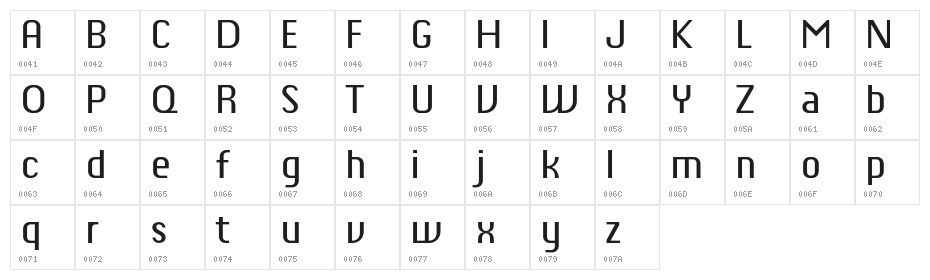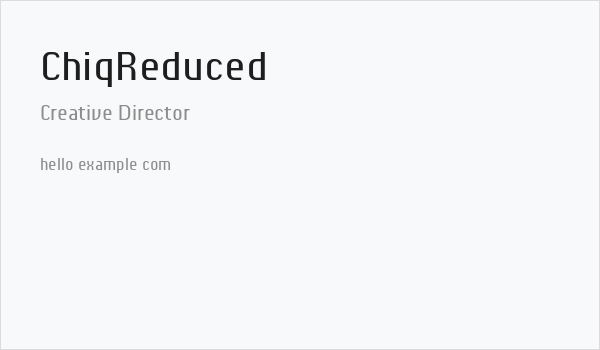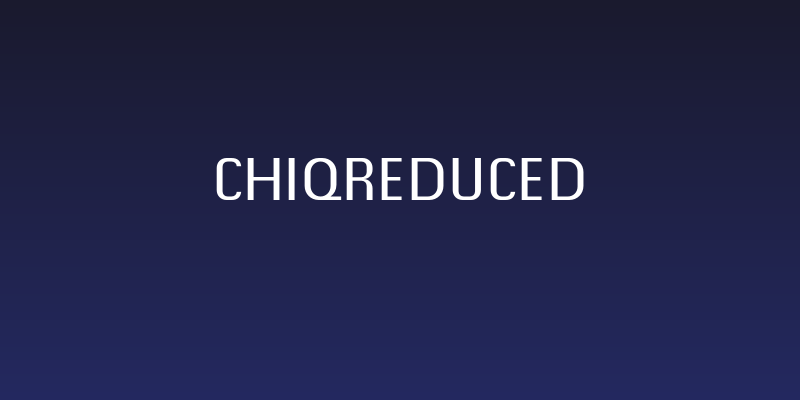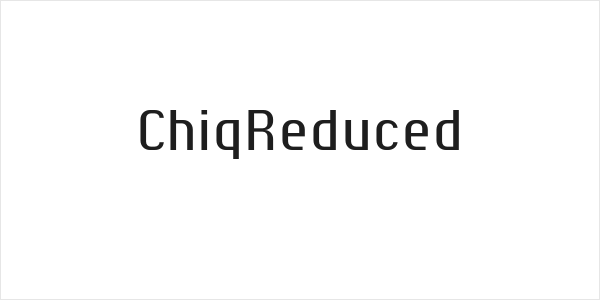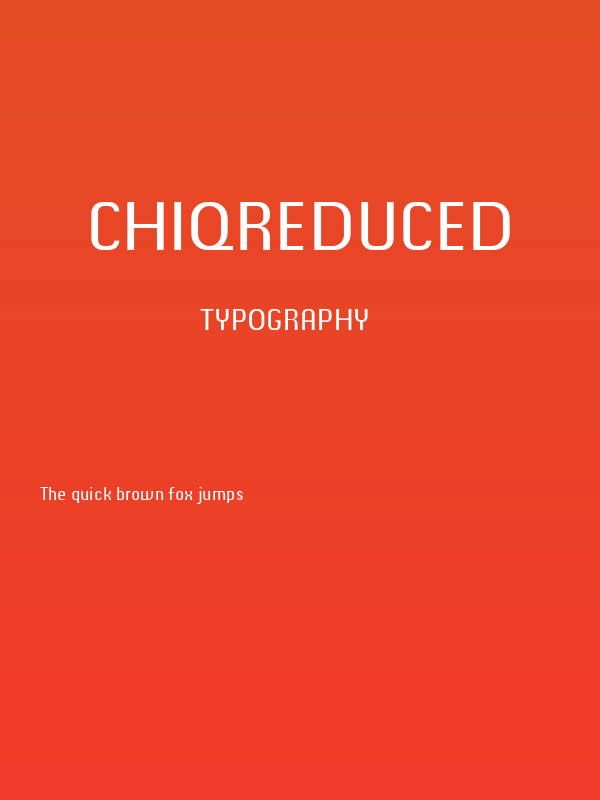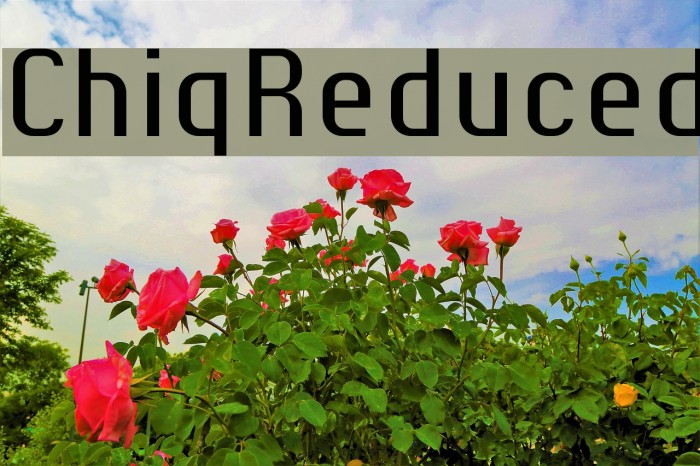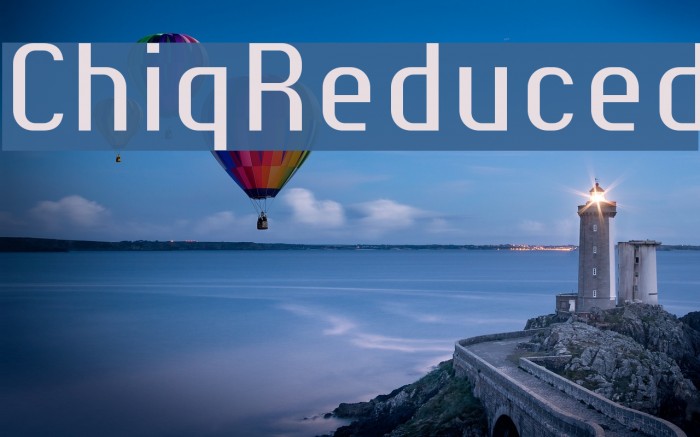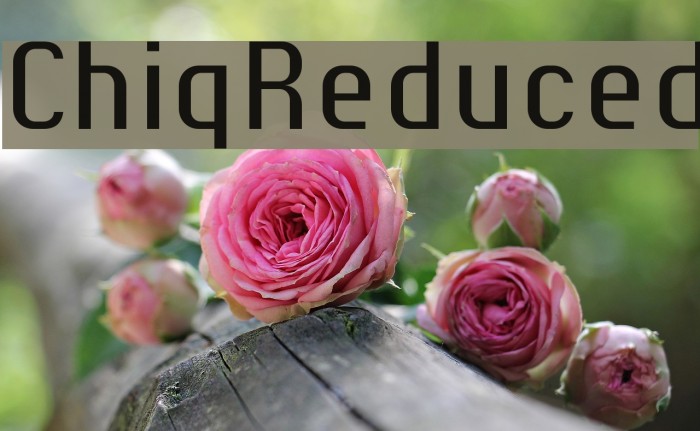
ChiqReduced Font
ChiqReduced Description
This font features a clean and modern sans-serif design, characterized by its geometric shapes and uniform stroke widths. The uppercase letters are tall and slightly condensed, giving a sleek and contemporary appearance. The lowercase letters maintain a consistent height, with rounded edges that add a touch of softness to the overall look. The numerals are clear and legible, matching the style of the alphabet. Special characters are well-integrated, maintaining the font's cohesive aesthetic. This font's simplicity and clarity make it versatile for various design applications.
| Proposed Projects | Ideal for branding, web design, advertising, and editorial layouts. |